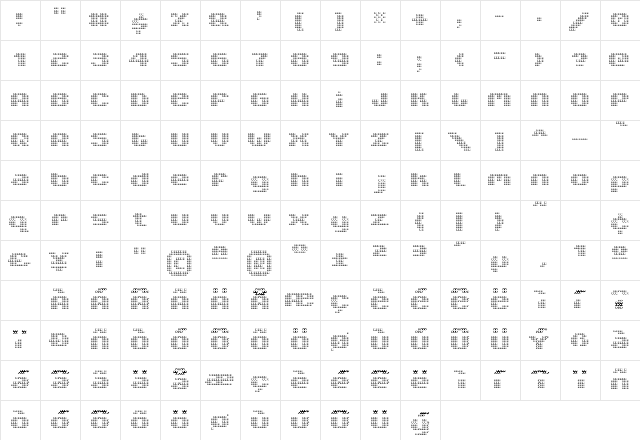
V5 Xtender Loin Free Font
V5 Xtender Loin
Style: Loin
V5 Xtender Family
Design Context for V5 Xtender
V5 Xtender is a composed and adaptable typeface that performs quietly and consistently across a wide range of design contexts.